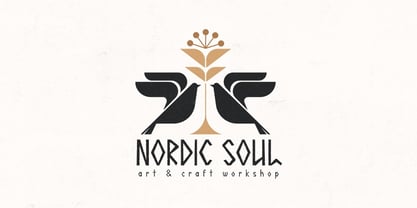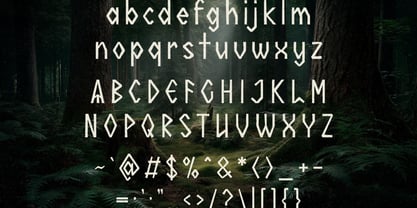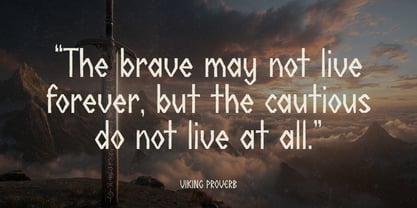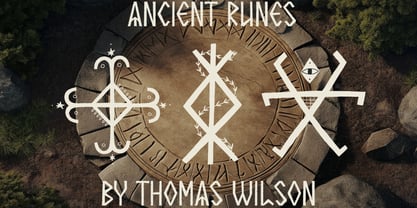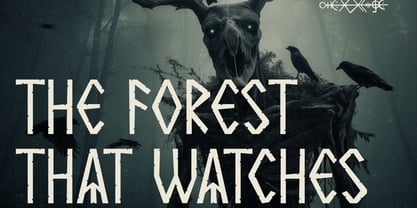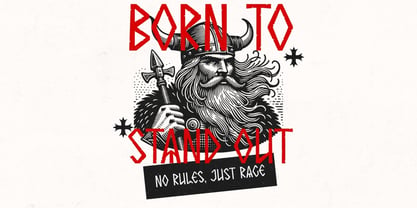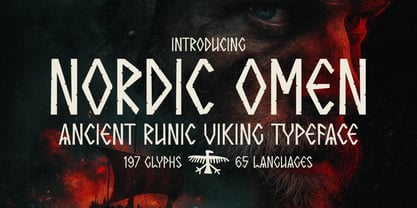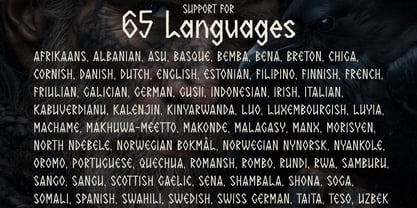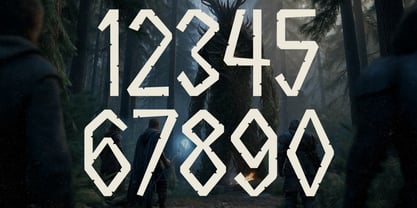
Nordic Omen
by Hipfonts
The Nordic Omen Font Family was designed by Igor Ovsyannykov and published by Hipfonts. Nordic Omen contains 1 styles. More about this family
Step into the shadows of legend with Nordic Omen, a bold typeface forged in the spirit of Vikings, runes, and ancient Norse mythology. With jagged edges, rune-inspired glyphs, and an untamed warrior energy, this font captures the raw power of the North and the mystique of forgotten legends. Perfect for epic branding, game titles, fantasy book covers, posters, or cinematic projects, Nordic Omen brings a rugged, mythological presence to every design. Each letter feels carved from the very stones of Valhalla, evoking strength, mystery, and timeless Nordic heritage.
Designers: Igor Ovsyannykov
Foundry: Hipfonts